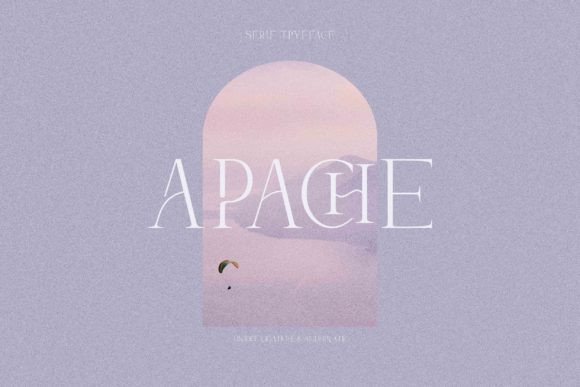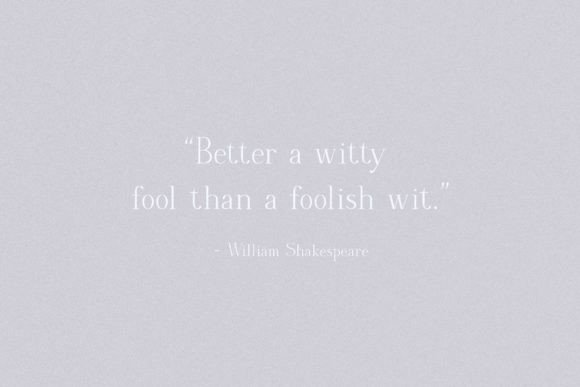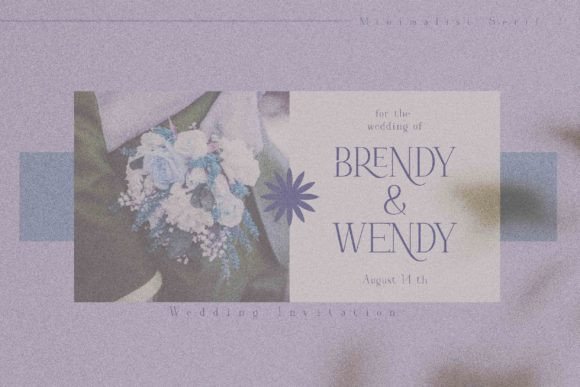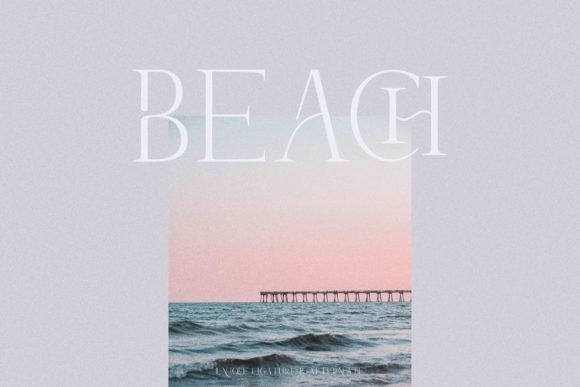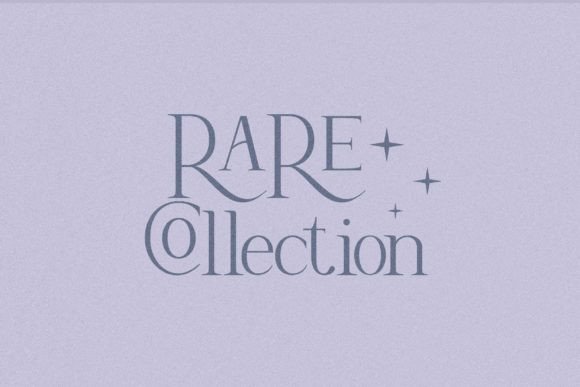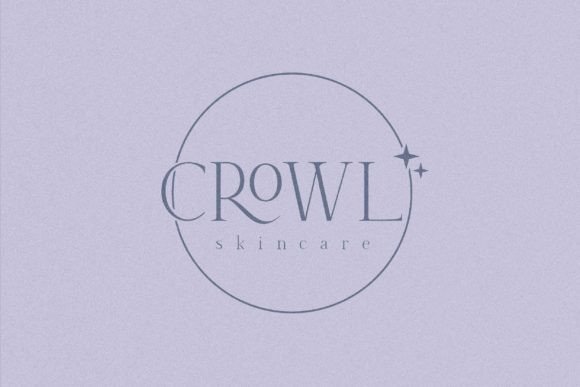
Introduction to Hisav Font
As designers, we’ve all been there – staring at a blank canvas, searching for the perfect font to bring our creative vision to life. It’s that moment of clarity when everything falls into place, and the right font makes all the difference. For those who have been searching for a font that exudes luxury, elegance, and femininity, look no further than the Hisav Font.
With its modern and stylish serif design, the Hisav Font is the perfect addition to any designer’s toolkit. Whether you’re working on a high-end fashion campaign or a delicate wedding invitation, this font is sure to make a statement. Its perfect balance of trendiness and sophistication makes it a valuable resource for any creative project, and with a high-quality design, you can be sure your work will stand out from the crowd.
Key Features of Hisav Font
- Unique, Hand-Drawn Design: Hisav Font features a distinctive, hand-drawn aesthetic, making it perfect for creative projects requiring a personal touch.
Honest Review: Hisav Font
As a designer, I’m always on the lookout for high-quality design resources that can elevate my creative projects. Recently, I stumbled upon the Hisav Font, and I’m excited to share my honest review with you.
Here are some things that work well: ✨ The Hisav Font is incredibly versatile, with a wide range of weights and styles that can be used for both commercial and personal projects. It’s also completely free to download, which is a major plus. The font is highly legible, even at small font sizes, making it perfect for digital design projects. Additionally, the font comes with a transparent background, which is ideal for creative projects that require a clean and minimalist look.
Here are some limitations: ⚠️ While the Hisav Font is free to download, it’s not open-source, which may be a concern for some designers who prefer to use open-source fonts. Additionally, the font may not be suitable for very large-scale commercial projects, as it’s not as robust as some other commercial fonts.
Overall, I’m impressed with the Hisav Font, and I would definitely recommend it to designers who are looking for a high-quality, free font for their creative projects. Whether you’re working on a personal blog or a large-scale commercial project, the Hisav Font is definitely worth considering.
- Highly versatile font with a wide range of weights and styles
- Highly legible, even at small font sizes
- Transparent background ideal for creative projects
Tips for Getting the Most Out of Hisav Font
To get the most out of Hisav Font, use it on a transparent background for a sleek and modern look. You can also combine Hisav Font with other design elements to create a visually appealing design.
Hisav Font is suitable for various design projects, including business cards, brochures, and social media graphics. Its high-quality design makes it a popular choice for creative projects.